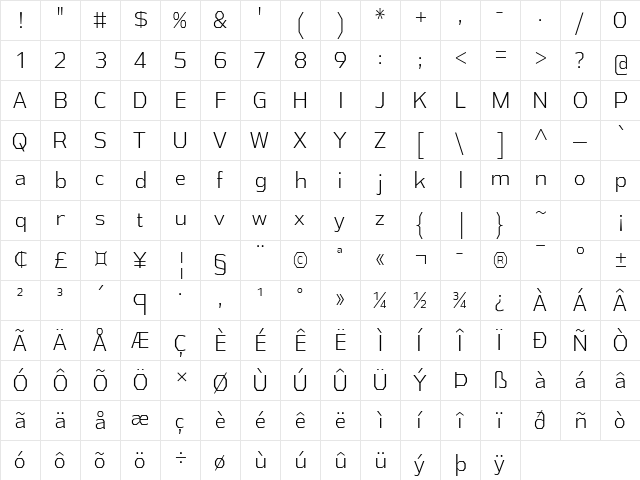
Athabasca Condensed Light
Design Context for Athabasca Typeface
Athabasca takes a measured approach to typography — its balanced proportions and neutral character make it a reliable workhorse for both digital and print work. The delicate stroke weight brings airiness and refinement to layouts. Its narrow stance lets it pack a punch even in space-constrained designs.